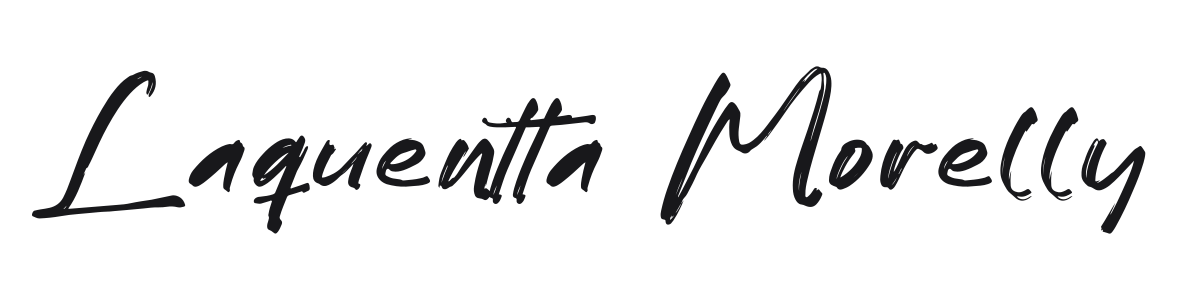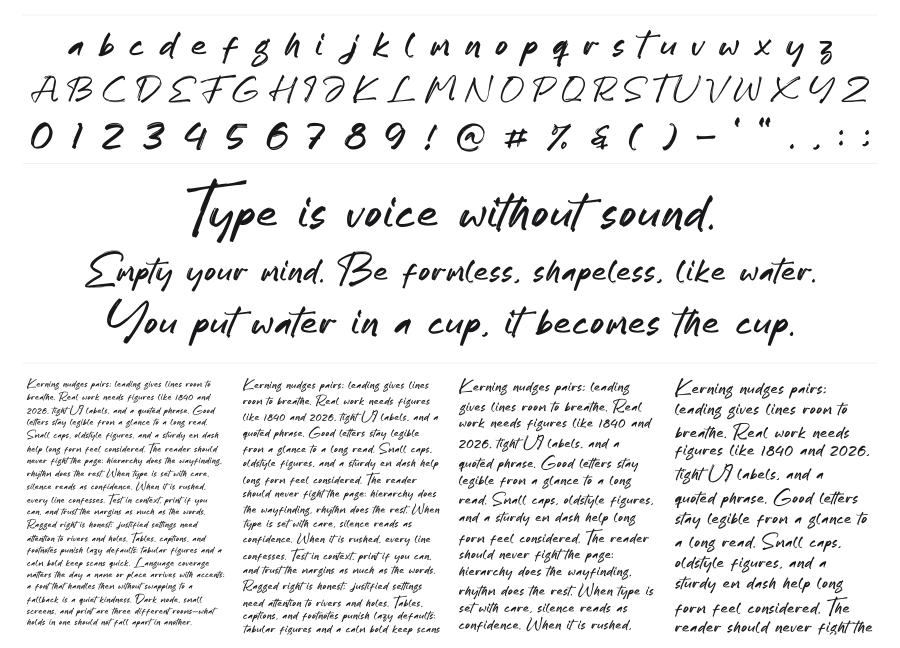
Laquentta Morelly
Laquentta Morelly is a rugged brush script with thick, inky downstrokes and fraying bristle textures that make it feel like it was dashed off with a wide brush. The natural variation in stroke weight and the loose, flowing connection between letters give it an energy that clean digital scripts rarely achieve. Strong for editorial headlines, packaging, and any branding that needs an authentic handmade quality.